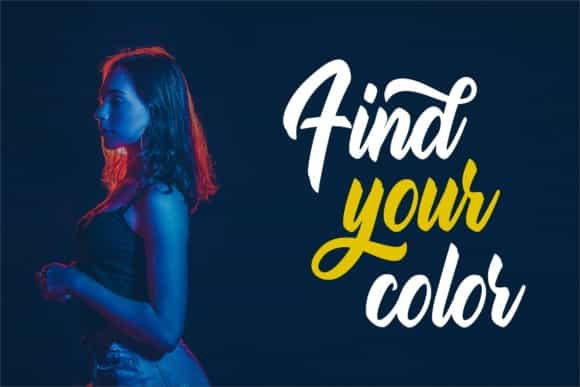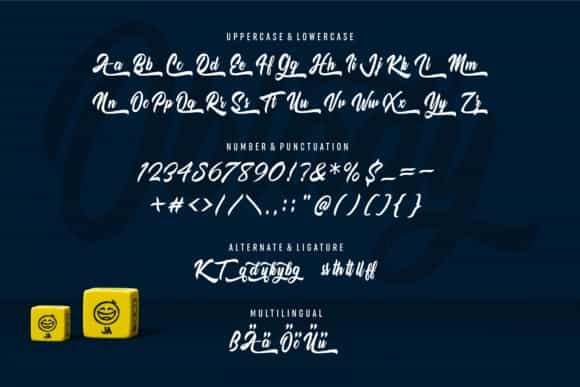
Oblady is a beautiful handwritten font created using the brush pen. Be enthralled by its amazing versatility and make stunning wedding invitations, stunning stationary, captivating tweets on social networks, and more! ” Oblady Font” has a natural relaxed, casual and friendly feel.